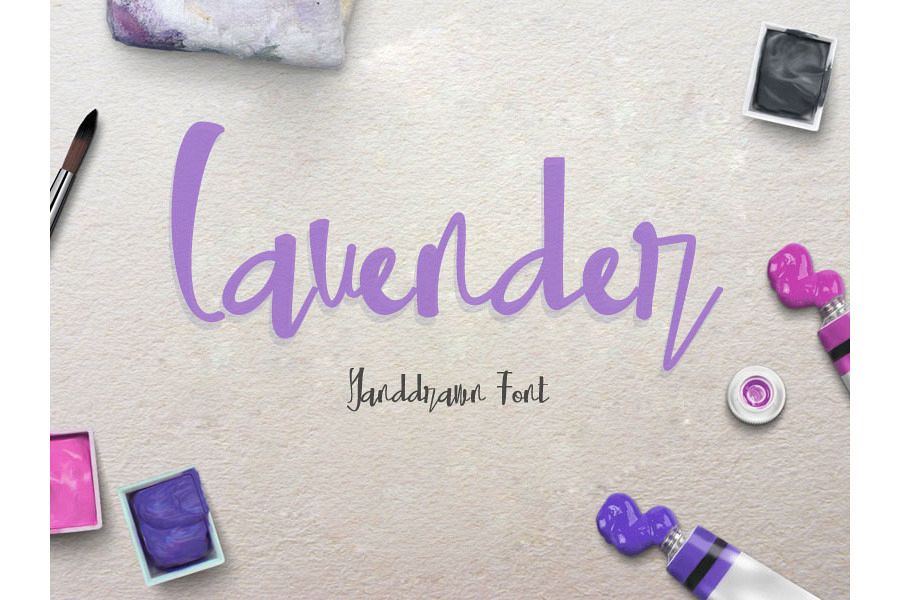
Lavender
Introducing... Lavender , the latest handrawn font with trendy, stylish, and modern touch. This font is suitable for the market design at this time. and certainly, this font is easy to use and also has various purposes. such as headings, signature, logos, wedding invitation, lable, news, posters, t-shirt, letterhead, badges etc